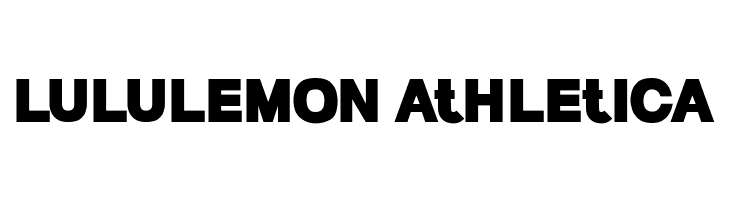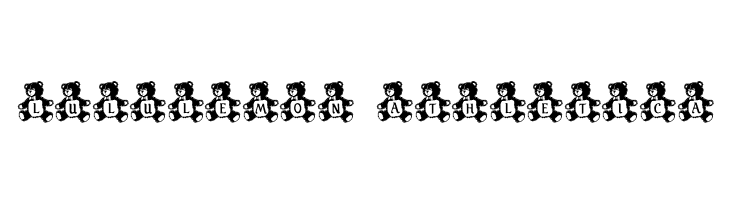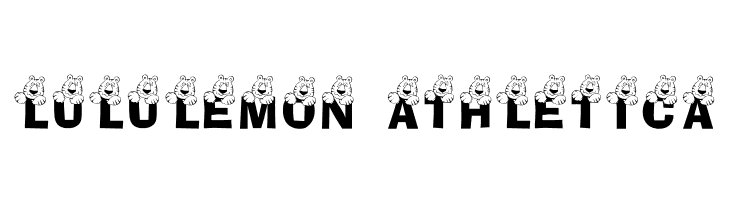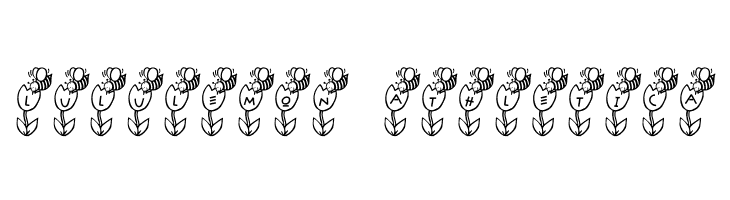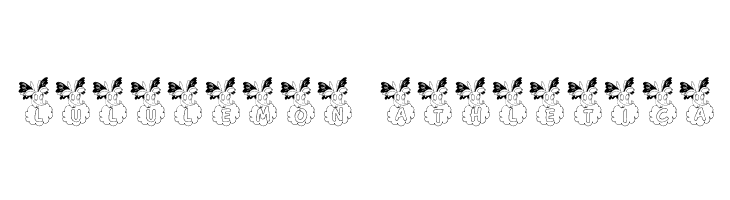
A playful font with characters embedded in teddy bear designs, ideal for children's projects.
A bold, playful font with cartoon tiger illustrations accompanying each character.
A playful, decorative font with characters inside tulip designs topped by bees.
A decorative font with characters formed by silhouettes of people, symbolizing unity.
A decorative font featuring awareness ribbons integrated into each character.
A whimsical, cloud-encased font with winged accents, perfect for playful designs.
A bold, high-contrast font with strong, thick strokes for impactful design.